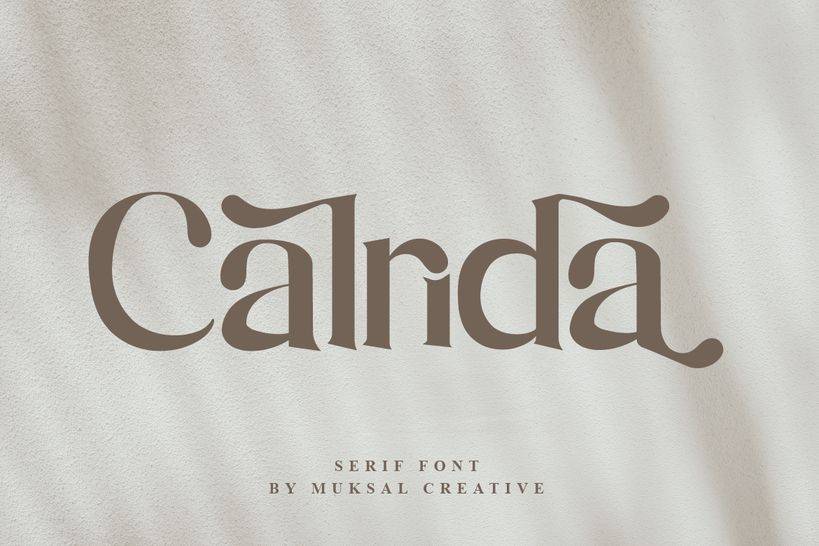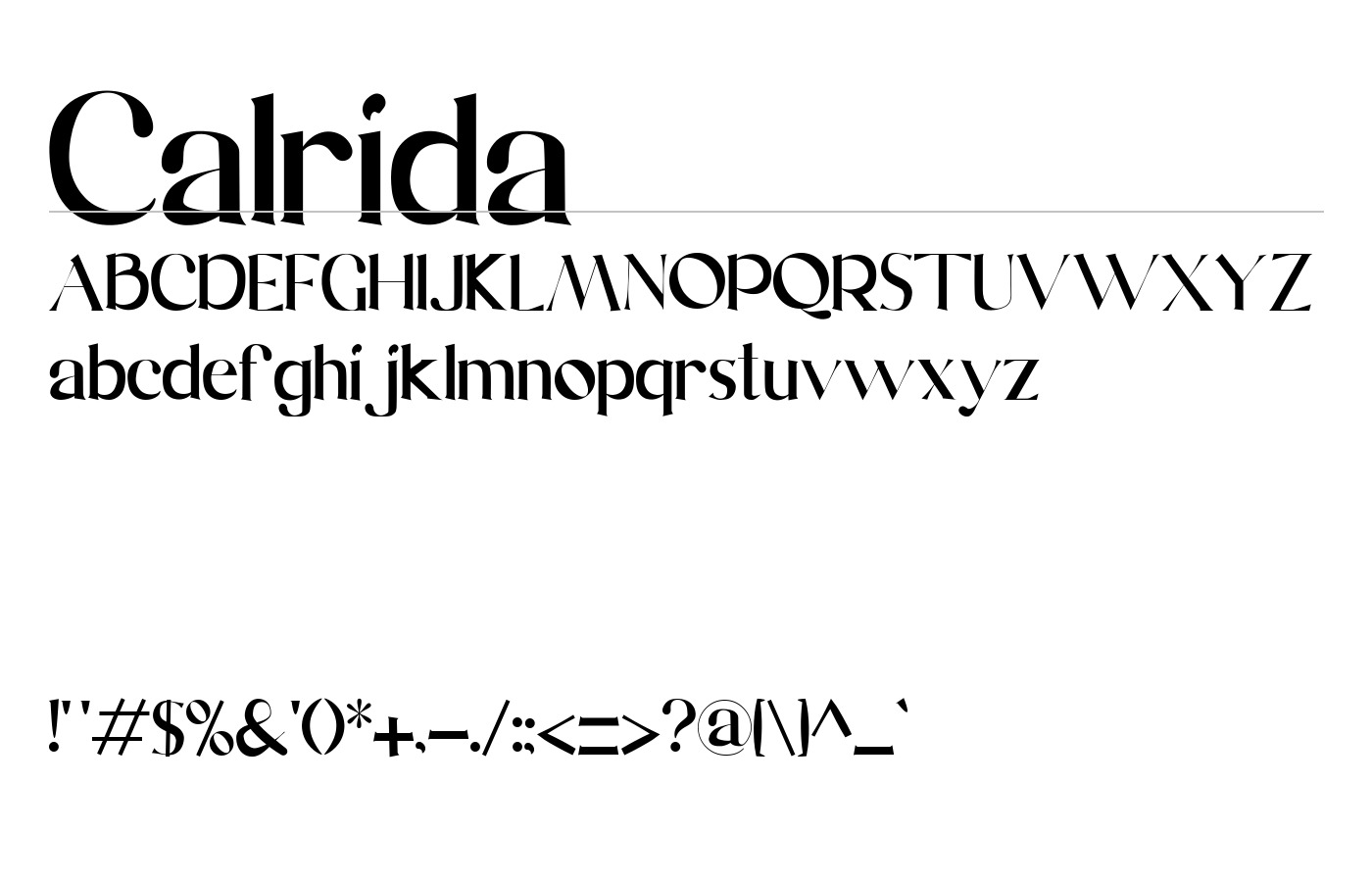
Calrida is an elegant serif font with a high contrast between thick and thin strokes, featuring narrow, sharp letterforms that give it a sophisticated and modern feel. Its unique stylized details, such as the angled terminals and distinct lowercase shapes, make it perfect for luxury branding, editorial headlines, and striking logos where a refined yet contemporary impression is desired. This font stands out in designs that require a blend of classic and avant-garde aesthetics.
Calrida Font
About Calrida Font